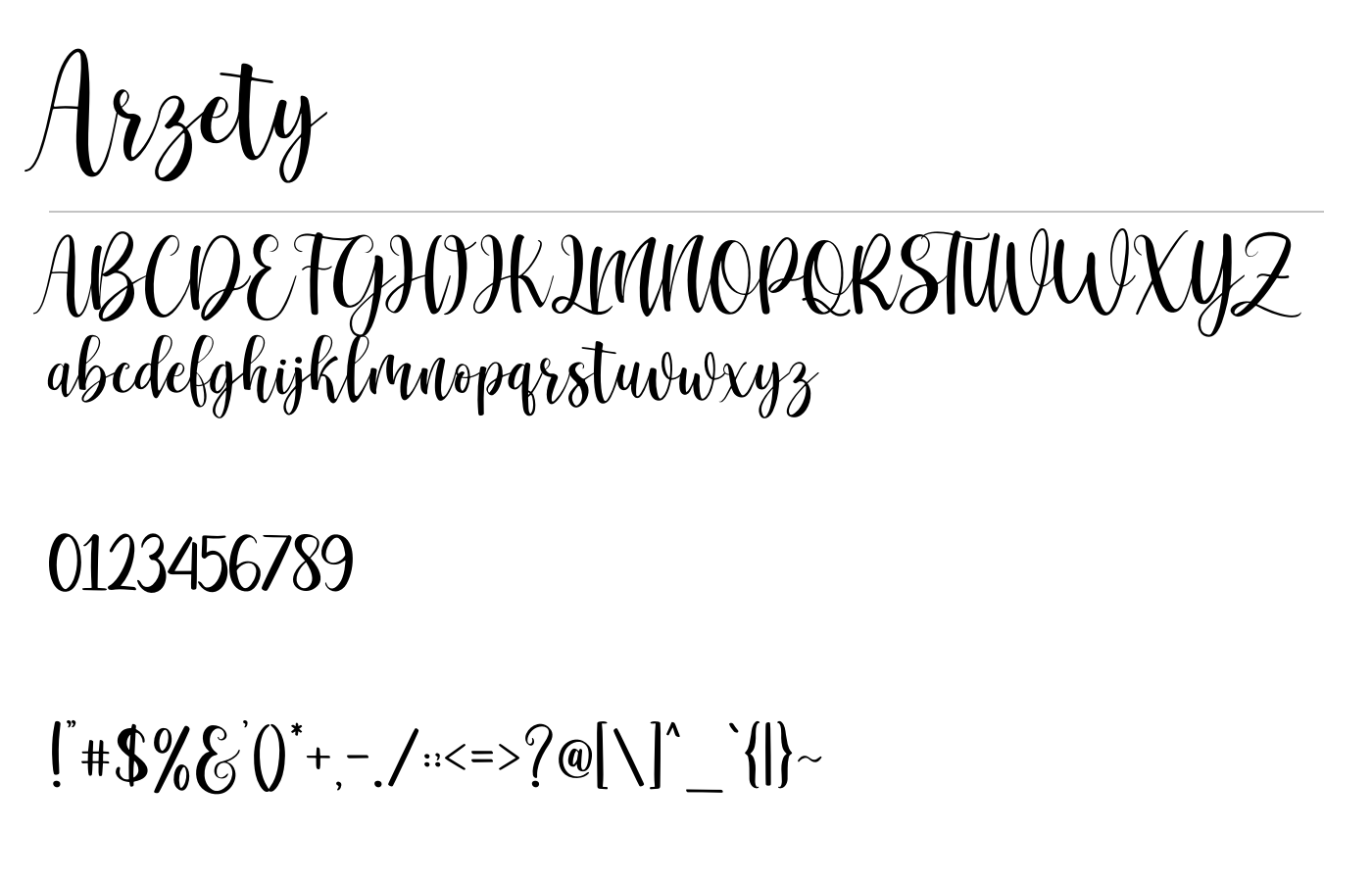
Arzety is a graceful script font with a flowing, handwritten style that combines elegance and playfulness. Its slender strokes and high contrast create a delicate yet lively feel, making it ideal for invitations, branding, and creative projects that seek a personal, stylish touch. This font works best in display uses where its charming curves and unique letterforms can shine.
Arzety Font
About Arzety Font
| Font family | Arzety Font |
| Designer | Febryl Arully |